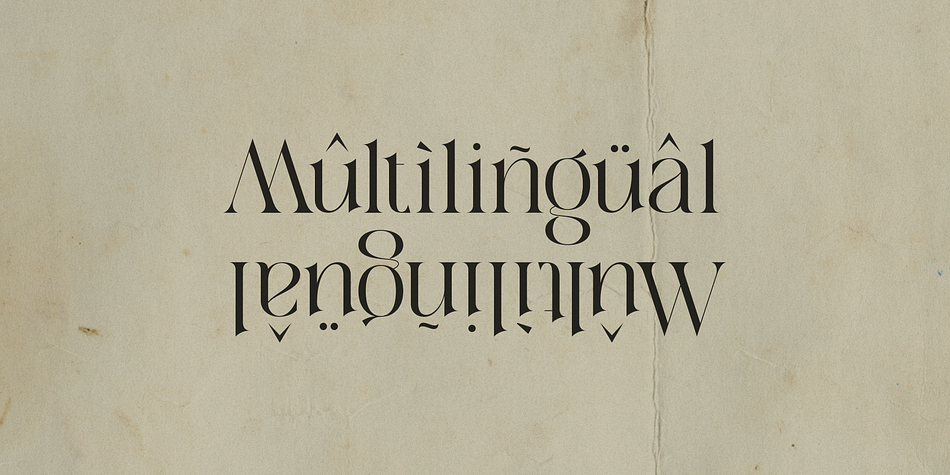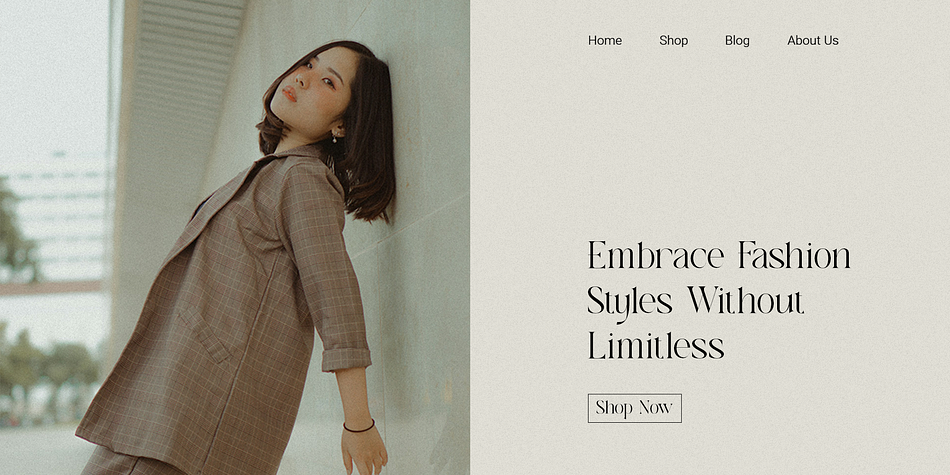
Allegiance is a serif font family published by Sohel Studio.
Introducing Allegiance, a thin modern elegant serif font that beautifully marries contemporary style with a touch of classic retro charm. This font is designed to elevate your projects with its unique and sophisticated aesthetics, perfect for those who appreciate a blend of the old and the new.
Allegiance features distinctive alternates that add versatility and flair to your typography. Its sleek and refined strokes make it ideal for a wide range of design applications, from premium corporate branding and cinematic posters to art deco-inspired invitations and college materials.
With influences from timeless serif fonts and the modern minimalism of fonts like Helvetica and Futura, Allegiance stands out with its unique fusion of styles. The font’s subtle retro touch evokes a sense of nostalgia while maintaining a contemporary edge, making it perfect for high-end projects that require a premium look.
Whether you’re working on love-themed designs, funky event materials, or creating nature-inspired graphics, Allegiance adds an element of elegance and sophistication. Its versatility makes it suitable for summer and tropical themes, minimalistic layouts, and even beach-inspired projects. The font’s cinematic quality ensures that your designs are always eye-catching and stylish.
Allegiance is not just a font; it’s a statement. It embodies the perfect balance between modern minimalism and retro elegance, making it an ideal choice for those who seek to create beautiful, timeless designs with a cursive touch and futuristic vibe.
Experience the charm and elegance of Allegiance, a serif font that combines thin, graceful lines with unique alternates and a touch of classic retro, offering a truly unique and stylish typographic solution for all your design needs.
- Elegant Thin Serif Style: Adds a touch of sophistication to any project.
- Unique Alternates: Provides creative flexibility and uniqueness.
- Versatile Use: Ideal for branding, invitations, magazines, logos, and more.
- High-End Aesthetic: Perfect for luxury and refined design projects.
- Full Set of Characters: Uppercase, lowercase, numerals, punctuation, and symbols.
- Unique Alternates: For creating distinctive and personalized designs.
- Multilingual Support: Includes characters for multiple languages.
- Bonus Glyphs: Additional decorative elements to enhance your designs.